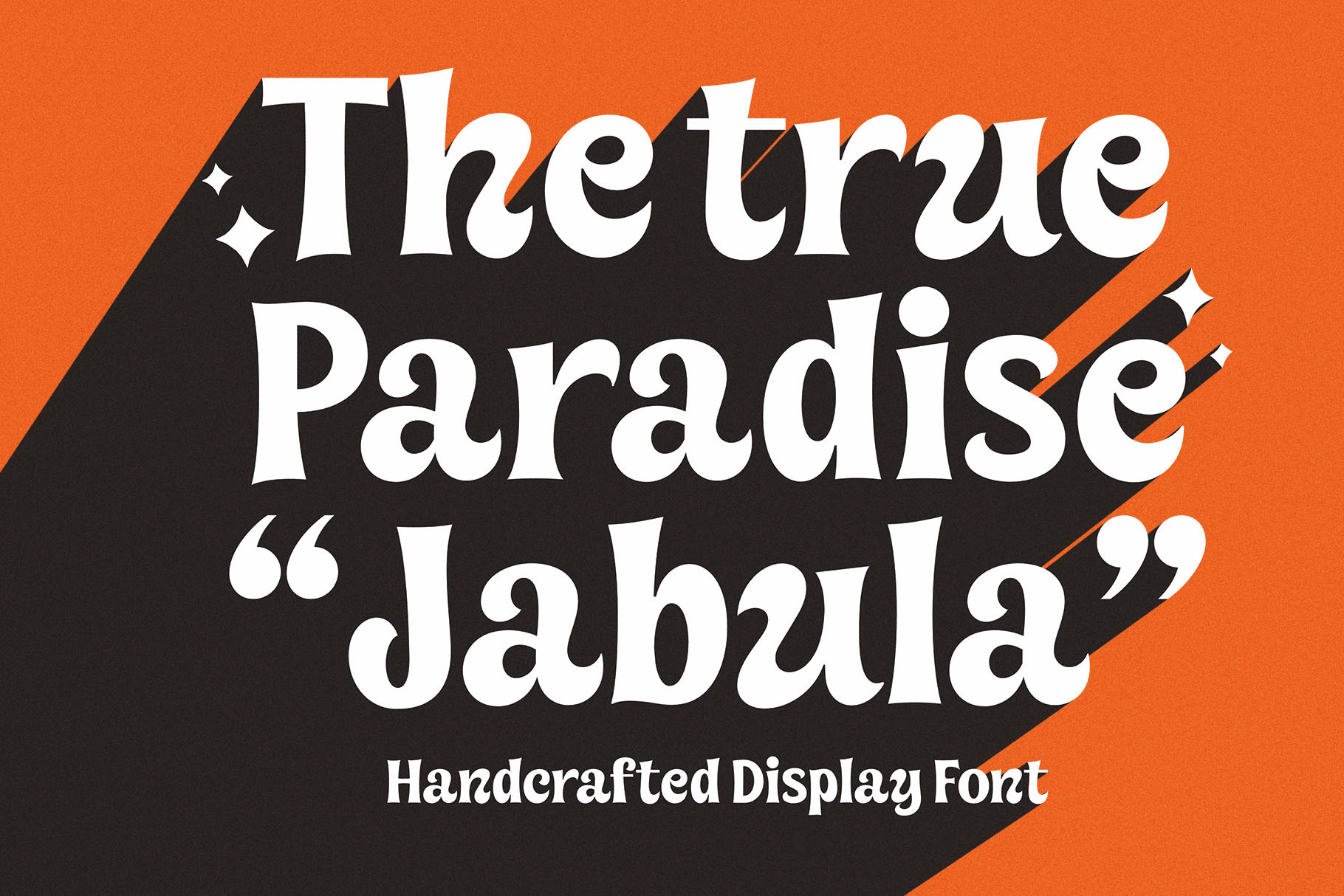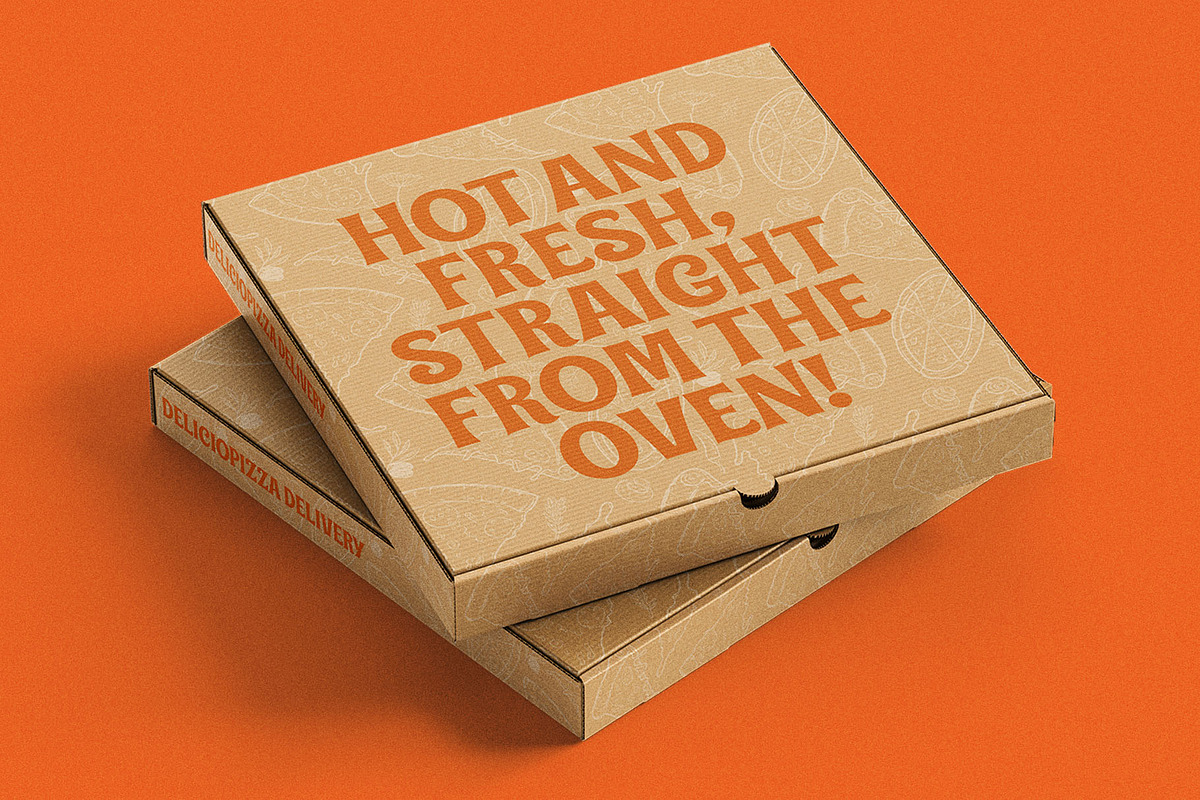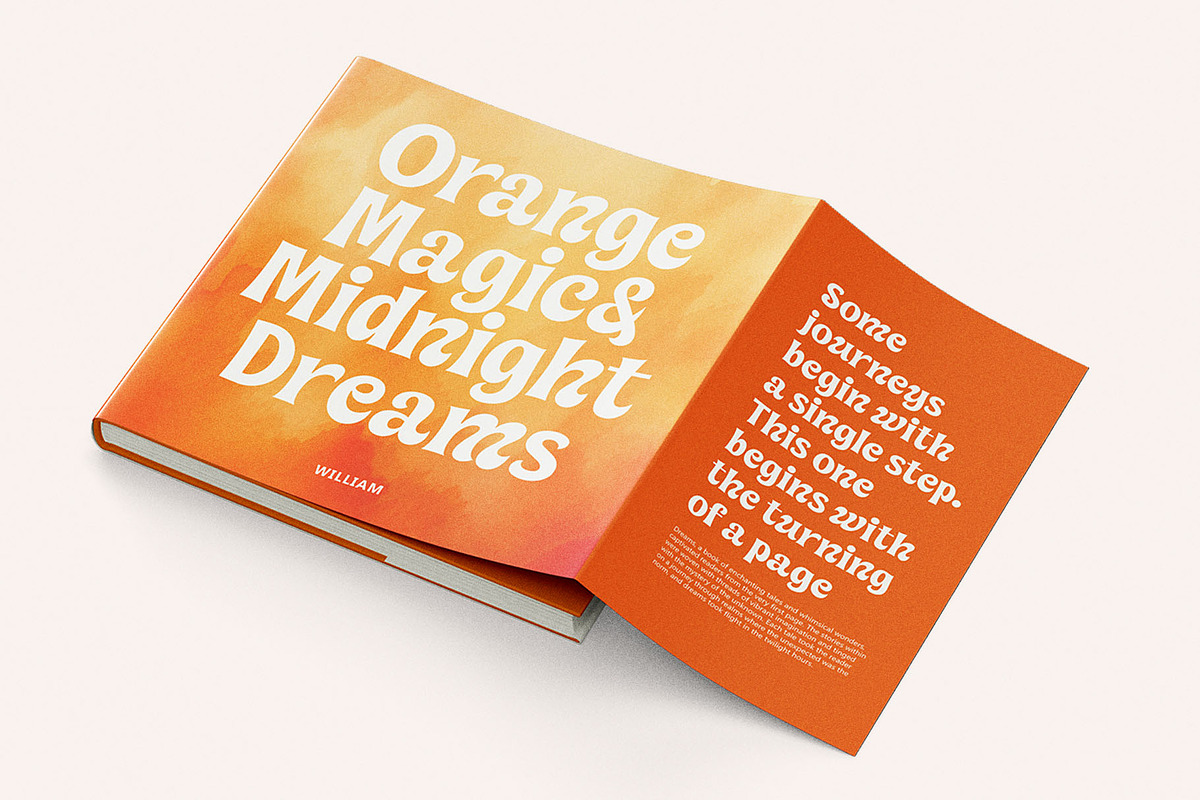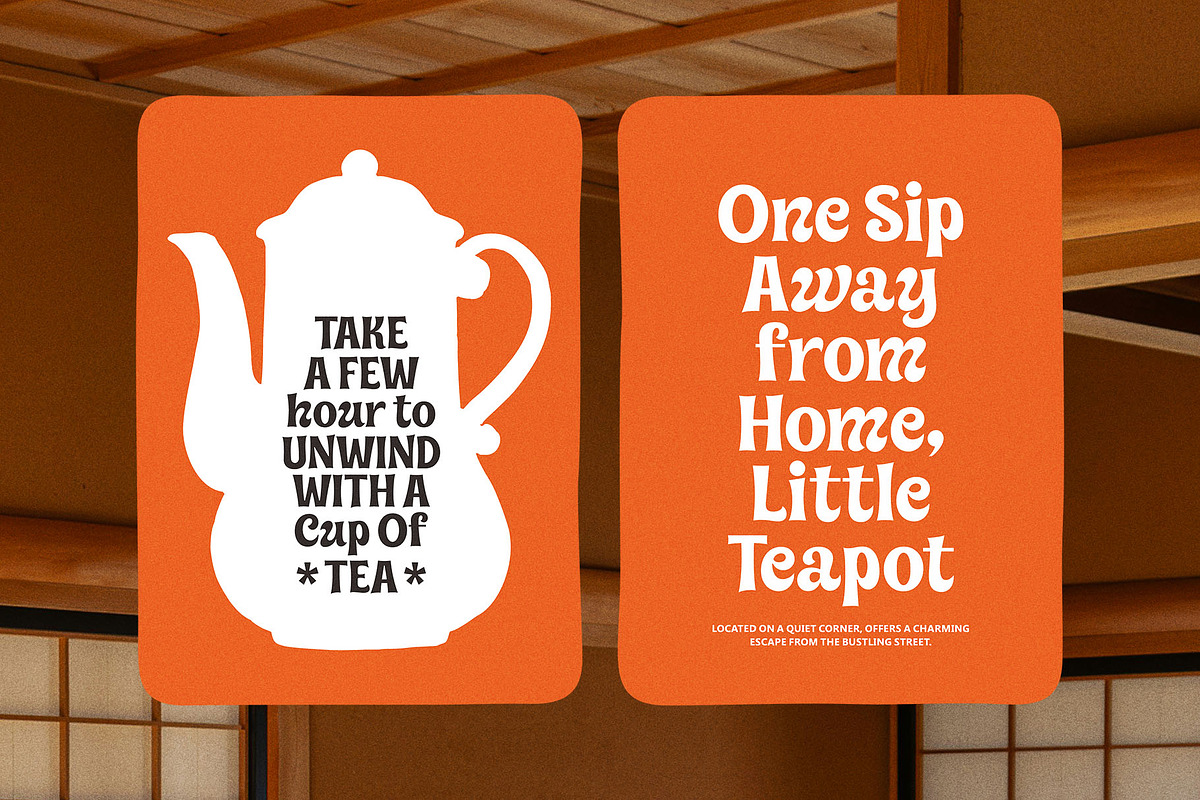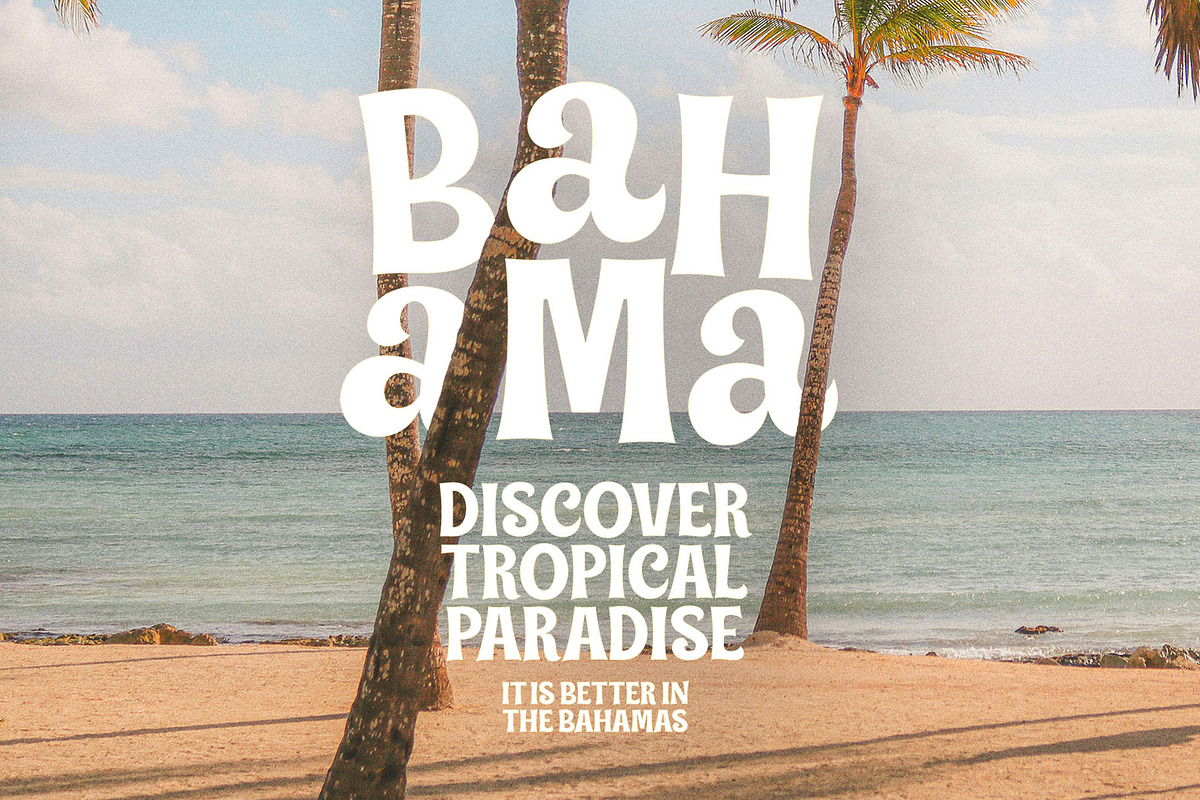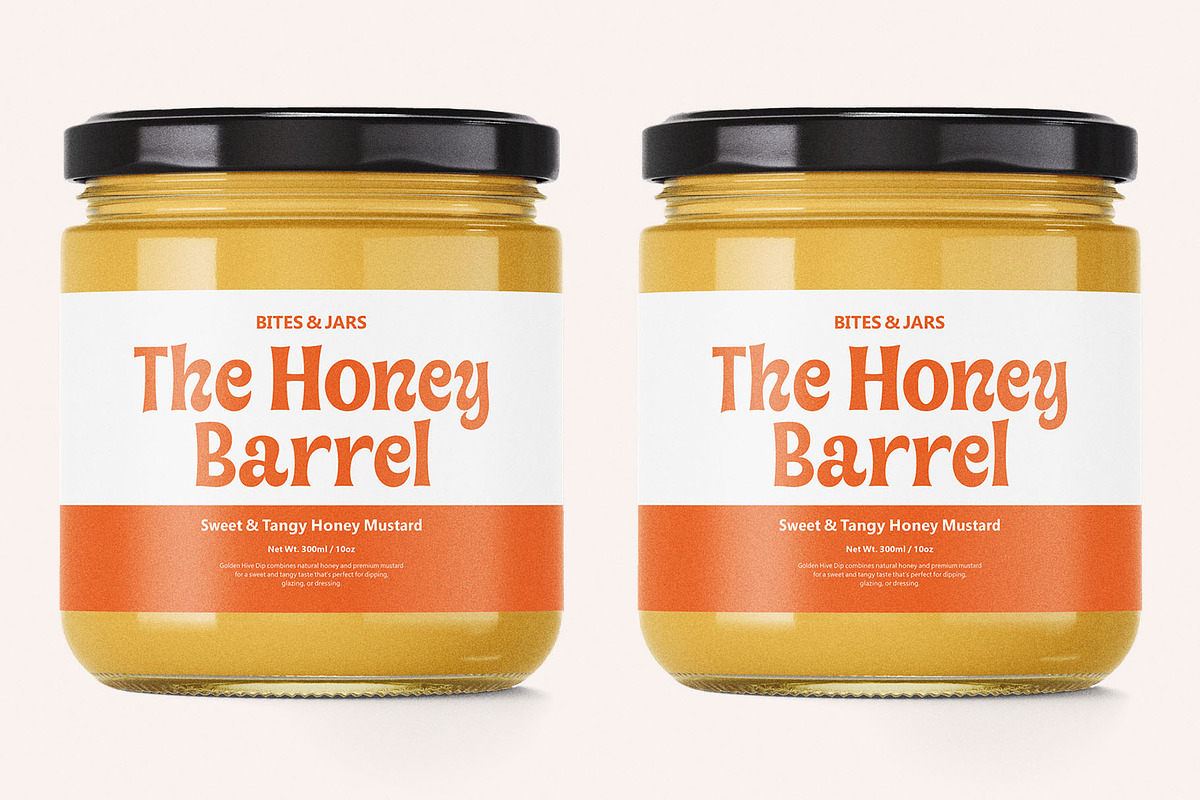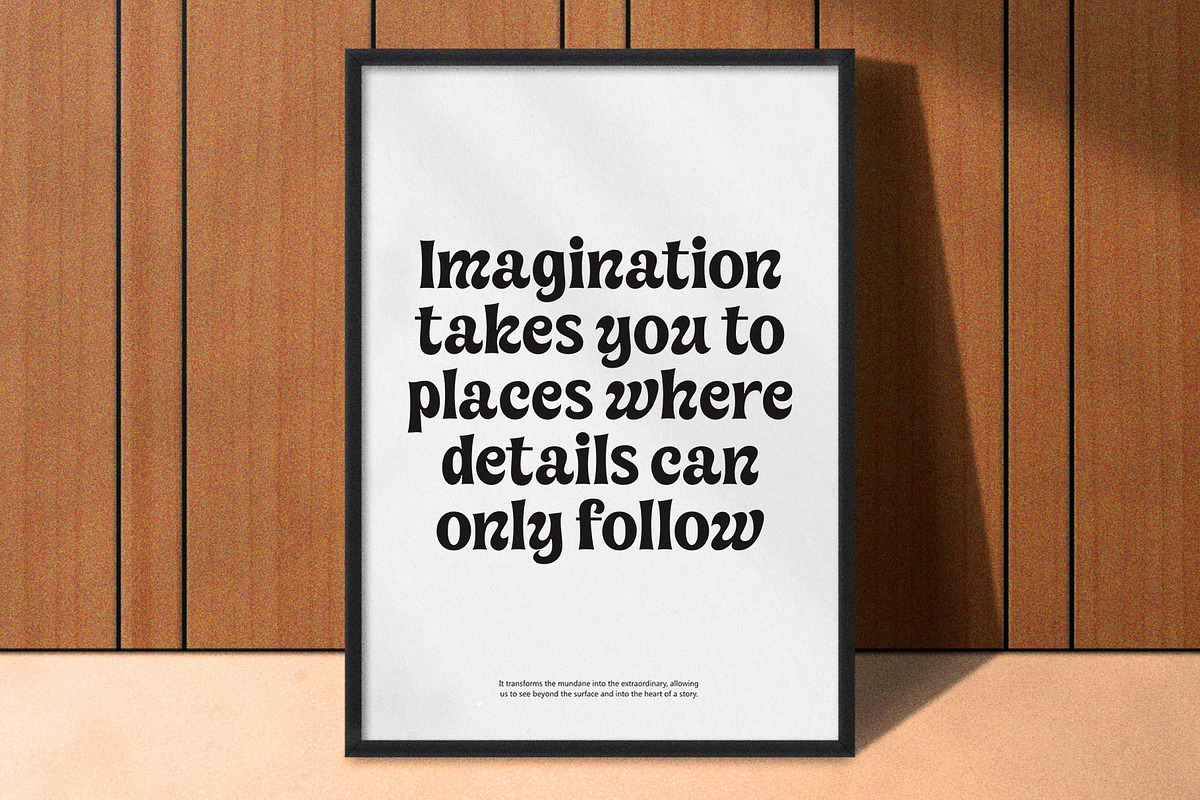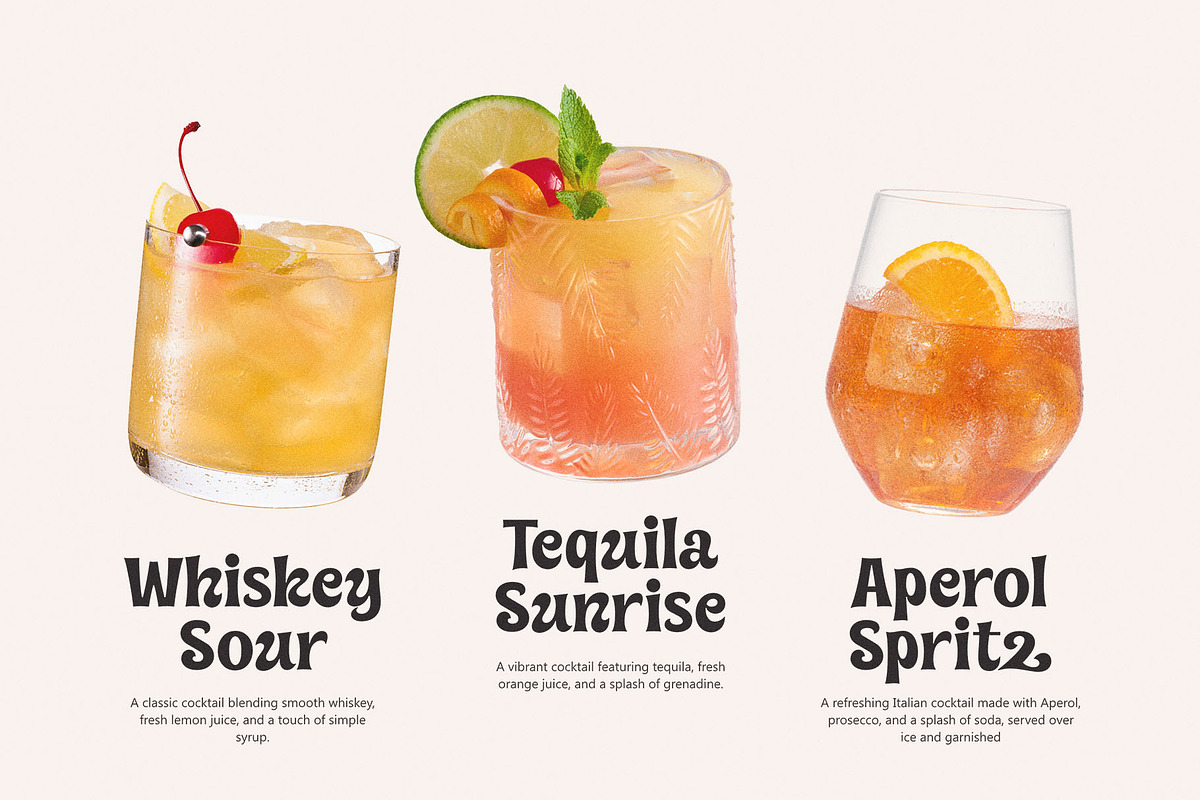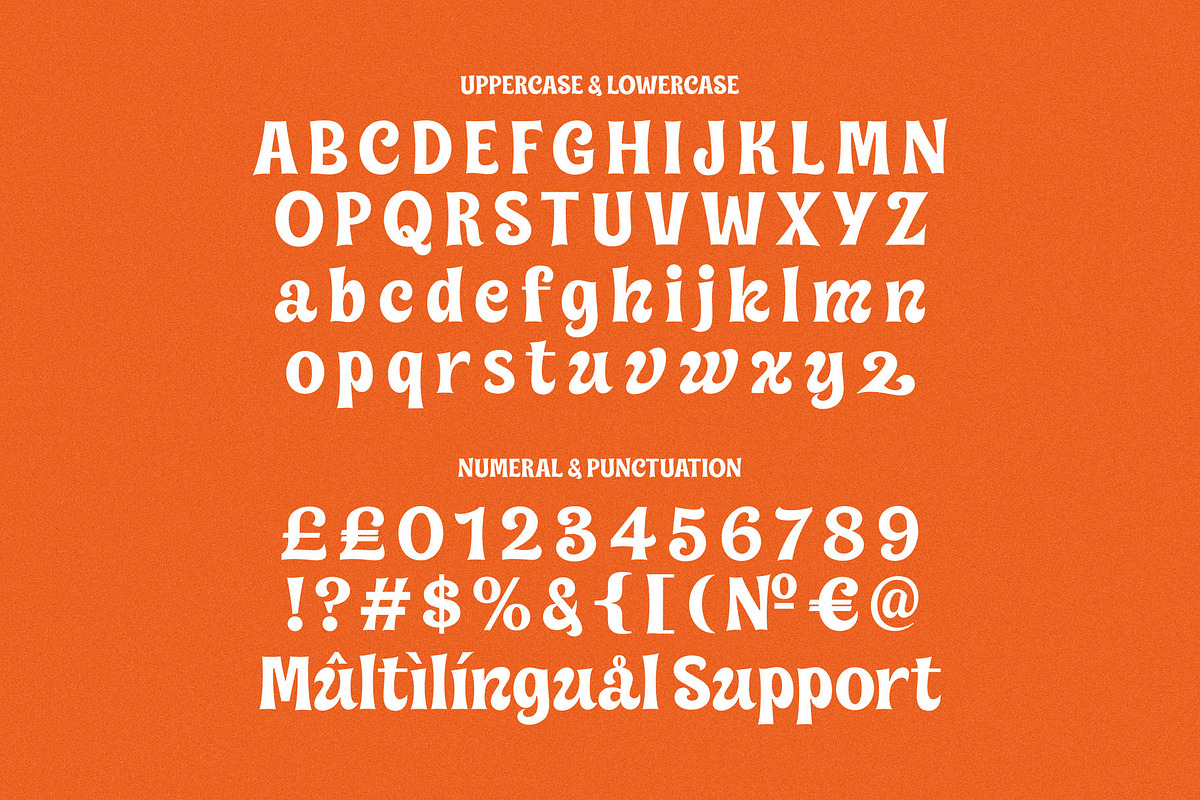
Jabula – Handcrafted Display Font
Jabula Handcrafted Display is a bold serif font with an organic, handcrafted touch. Its playful curves and dynamic edges bring a lively personality to any design — from retro posters and packaging to eye-catching headlines. Perfect for brands that want to stand out with a strong yet friendly vibe.